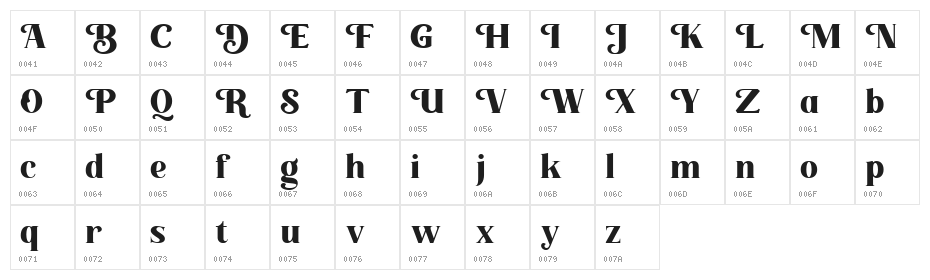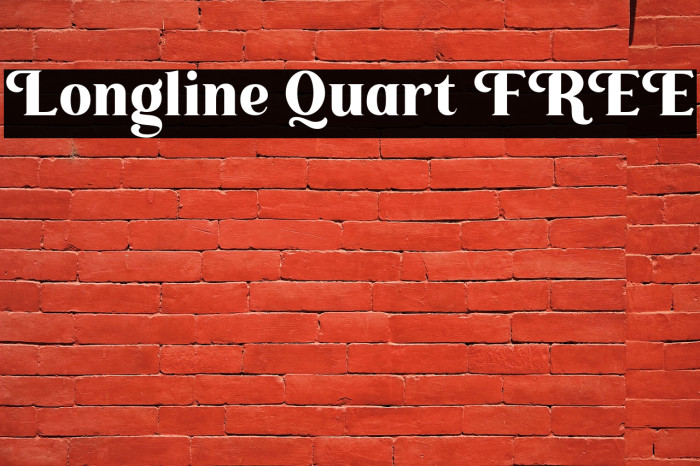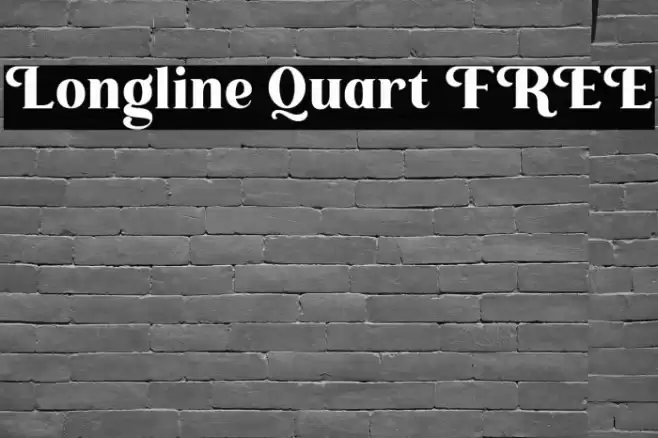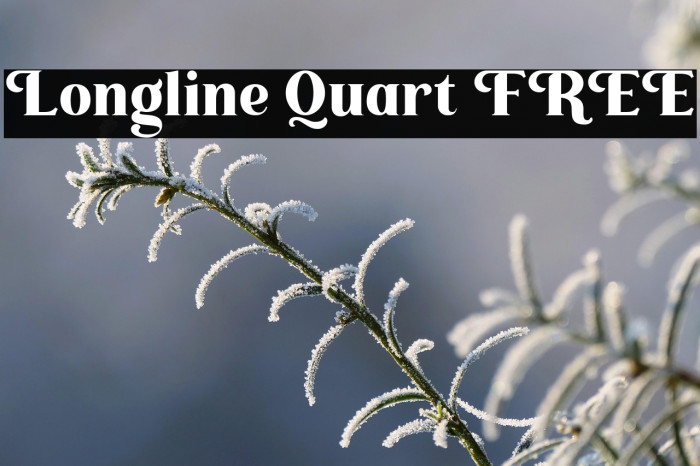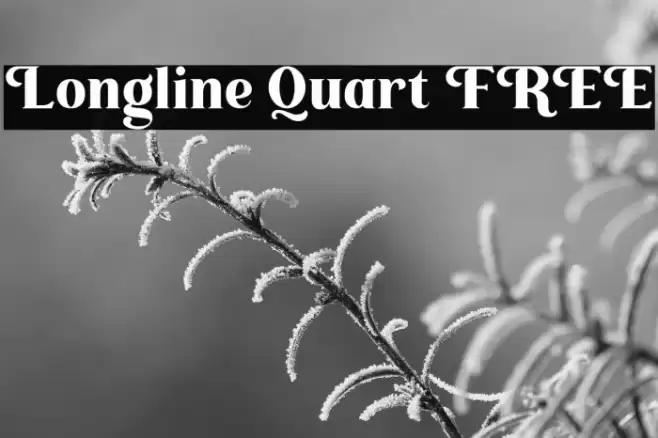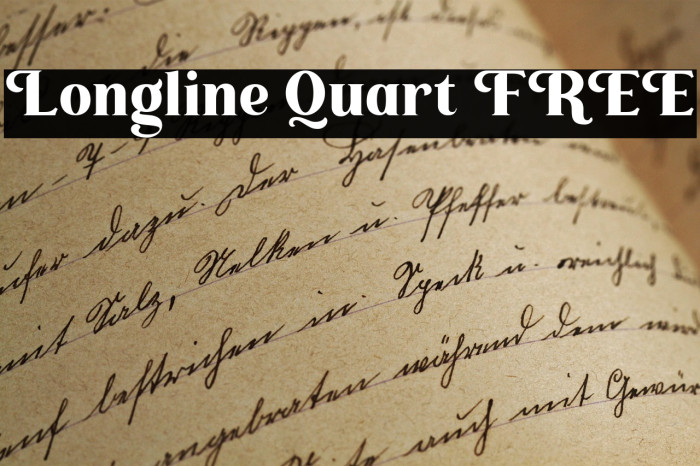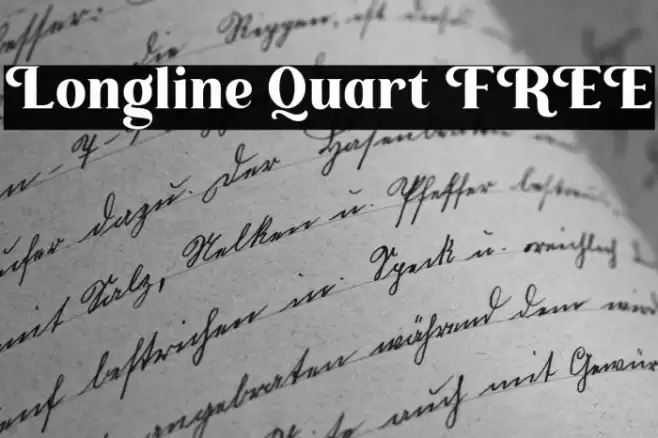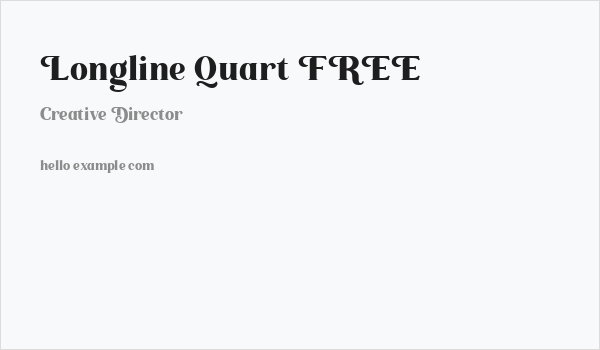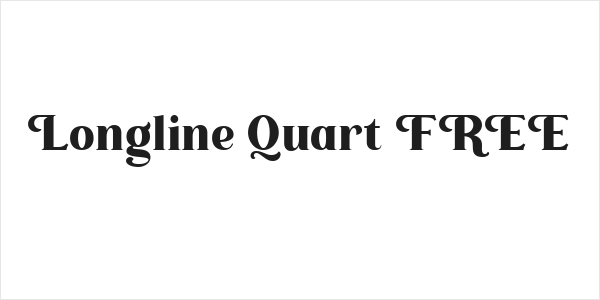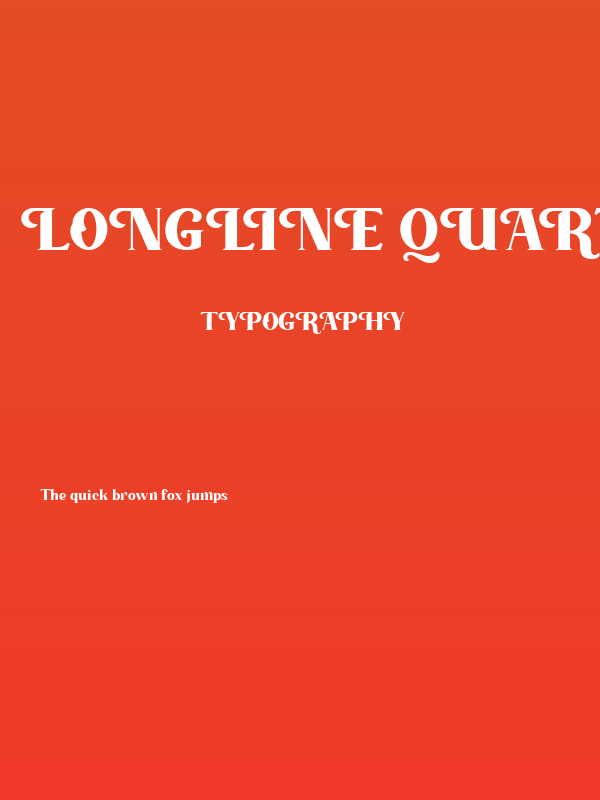
Longline Quart FREE Font
Longline Quart FREE Description
This font features a bold and decorative style with a strong presence. The uppercase letters are characterized by elegant curves and flourishes, giving them a distinctive and artistic appearance. The lowercase letters maintain a consistent weight, offering a balanced look that complements the uppercase. The numerals are clear and bold, ensuring readability. Special characters are designed with the same decorative flair, making them suitable for creative projects. The overall design is both classic and modern, with a touch of vintage charm.
| Proposed Projects | Ideal for branding, headlines, posters, and invitations where a bold and artistic statement is needed. |